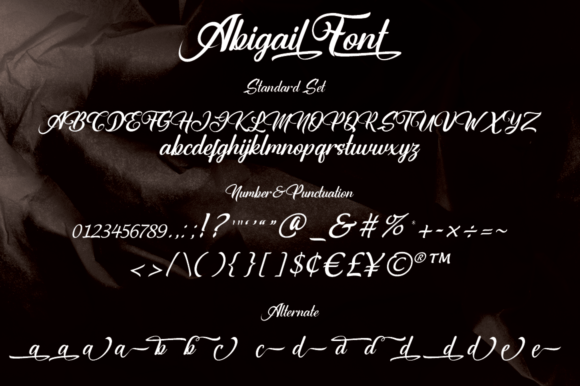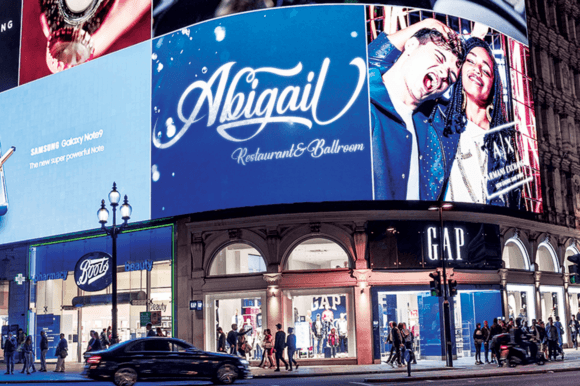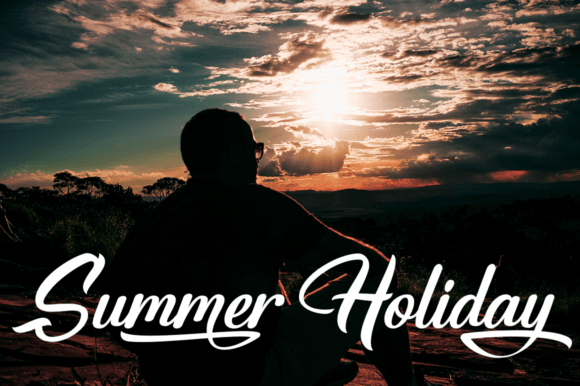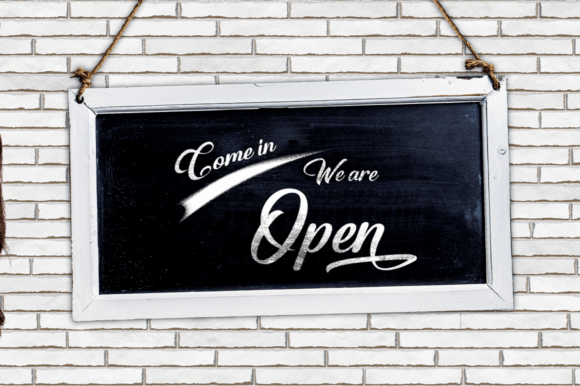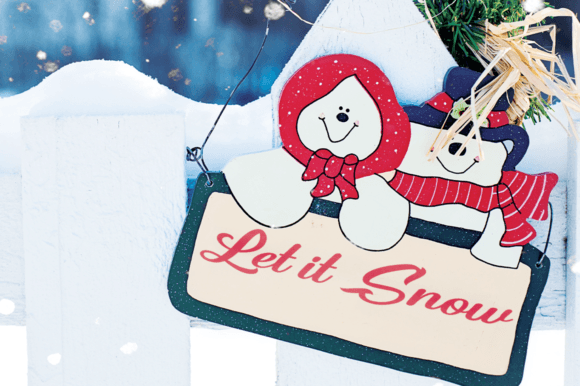
Discover the Elegance of Abigail Font: Elevate Your Designs with Timeless Style
In the world of typography, few fonts capture the essence of elegance and sophistication as beautifully as the Abigail Font. This stunning handwritten font is characterized by its neat and beautiful appearance, adorned with an elegant touch that makes it perfect for a variety of creative projects. From wedding invitations and apparel designs to social media graphics and more, Abigail Font is sure to leave a lasting impression.
The Unique Charm of Abigail Font
Abigail Font stands out in the realm of digital typography due to its incredibly distinct and timeless style. Its unique charm lies in its handcrafted appearance, which brings a personal and intimate feel to any design. The font’s elegant strokes and carefully crafted letters exude a sense of sophistication and luxury, making it an ideal choice for designers and crafters looking to add a touch of class to their work.
One of the key benefits of Abigail Font is its versatility. Its elegant and timeless design makes it suitable for a wide range of projects, including:
- Wedding Invitations: Create beautiful and memorable wedding invitations that set the tone for a special day.
- Apparel Designs: Add a touch of elegance to t-shirts, hoodies, and other clothing items with this stunning font.
- Social Media Graphics: Elevate your social media presence with eye-catching graphics that showcase your brand’s personality.
- Stationery and Packaging: Add a personal touch to your stationery, packaging, and other printed materials.
Why Choose Abigail Font?
With so many fonts available, why choose Abigail Font for your next project? Here are a few compelling reasons:
- Unique Style: Abigail Font boasts a unique and timeless style that sets it apart from other fonts.
- Elegant Appearance: Its elegant strokes and carefully crafted letters make it perfect for projects that require a touch of sophistication.
- Easy to Read: Despite its elegant appearance, Abigail Font remains easy to read, making it suitable for both headings and body text.
- Highly Versatile: Use it for a wide range of projects, from digital graphics to printed materials.
Tips for Using Abigail Font Effectively
To get the most out of Abigail Font, consider the following tips:
- Pair it with Other Fonts: Combine Abigail Font with other fonts to create a unique and visually appealing design.
- Experiment with Colors: Try pairing the font with different colors to create a look that matches your brand’s personality.
- Use it for Headings and Titles: Abigail Font is perfect for headings and titles, where its elegant appearance can make a lasting impression.
In conclusion, Abigail Font is a beautiful and elegant handwritten font that is sure to elevate your designs to the next level. Its unique style, elegant appearance, and versatility make it a valuable addition to any designer’s toolkit. Whether you’re working on a wedding invitation, apparel design, or social media graphic, Abigail Font is the perfect choice for creating spectacular designs that leave a lasting impression.
So why wait? Fall in love with Abigail Font’s incredibly distinct and timeless style, and use it to create stunning designs that showcase your creativity and skill.